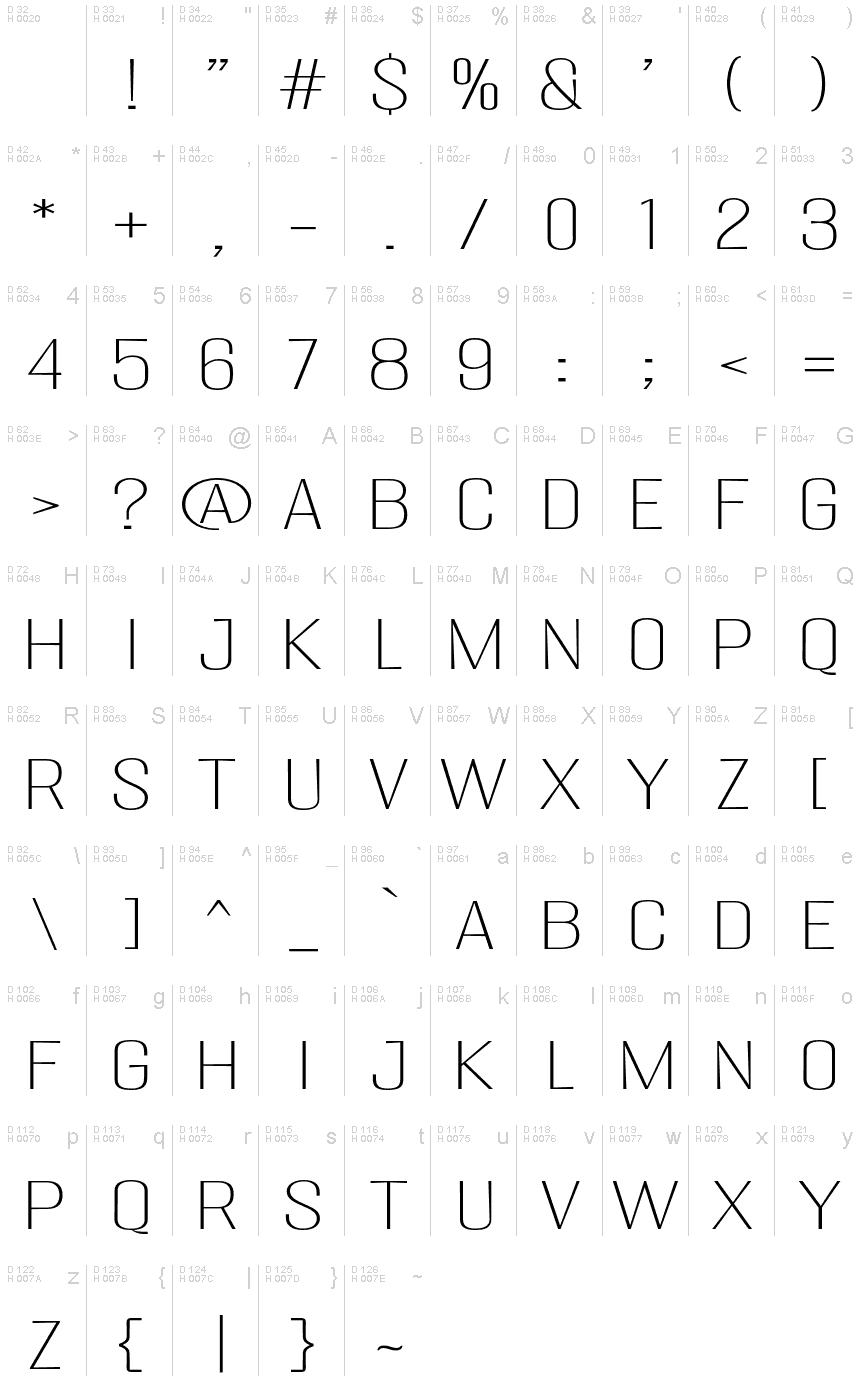
Migha-ThinExpandedCNTR
Migha Thin Expanded CNTR is a chic, extra-light sans serif font that's perfect for projects that require a sleek and modern touch. Designed by the talented Seniors Studio, this font is ideal for creating eye-catching headlines, logos, and marketing materials. The expanded width of this typeface adds an extra level of sophistication to your designs, making them stand out from the crowd. Use Migha Thin Expanded CNTR to create stunning branding materials for fashion labels or high-end beauty products. Its minimalist design also makes it suitable for websites and social media graphics that need a clean and contemporary look.
Seniors Studio